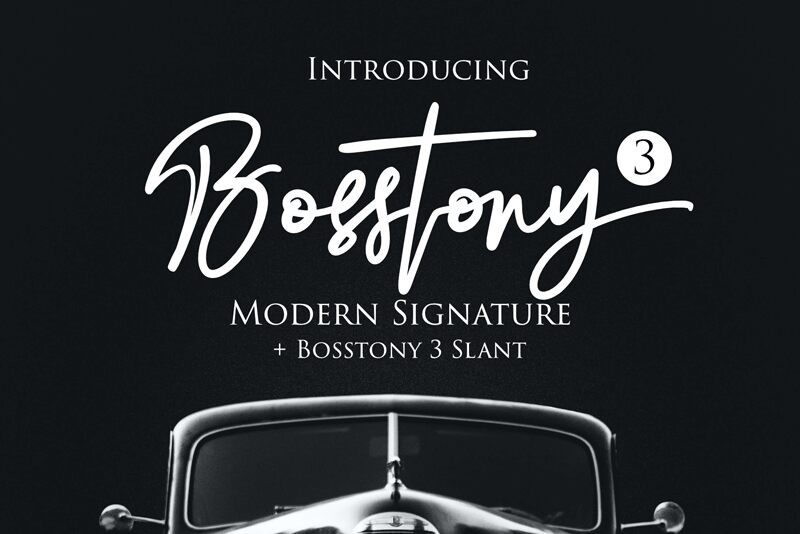
Bosstony 3
Bosstony 3 font is a free handwritten font with an expressive and artistic style by DumadiStyle. This casual and modern script typeface presents elegance and friendliness for any displayed text, no matter the format. If you like fonts that have individuality, you’ve just found one of those.
The versatility of Bosstony 3 expands to designing invitations and greeting cards, logos, magazines, book covers, business cards, and packaging. It also looks nice in social media posts and banners.